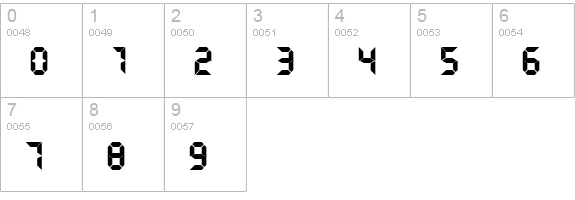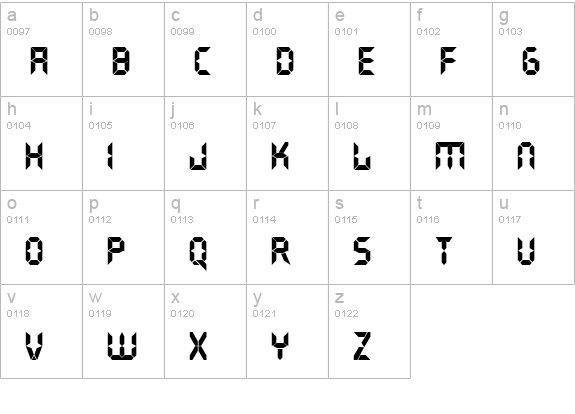
DS Crystal Font Details
DS Crystal font is a stunning typeface that exudes elegance and sophistication. Its sleek lines and modern design make it perfect for adding a touch of style to any project. This versatile font is ideal for use in a variety of creative endeavors, from branding and advertising to web design and print materials. Best of all, DS Crystal font is available for free download at FontsMarket.com. This means that you can easily access this beautiful font and use it in your projects without any cost. Don't miss out on the opportunity to enhance your designs with the unique charm of DS Crystal font - download it today and see the difference it can make!